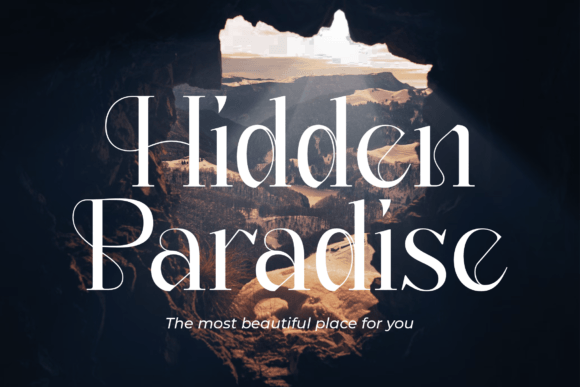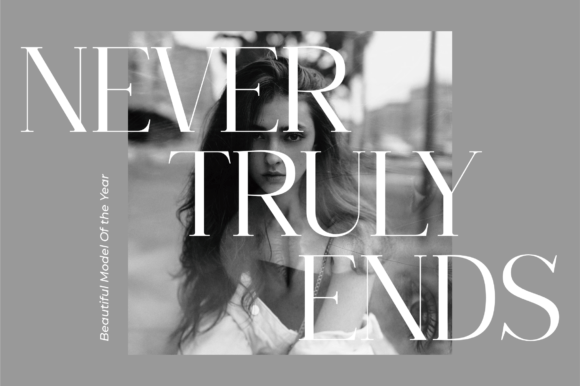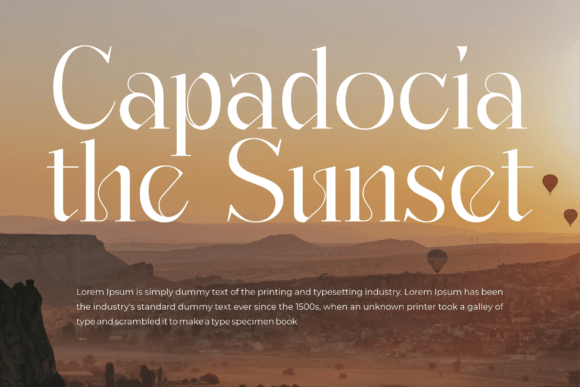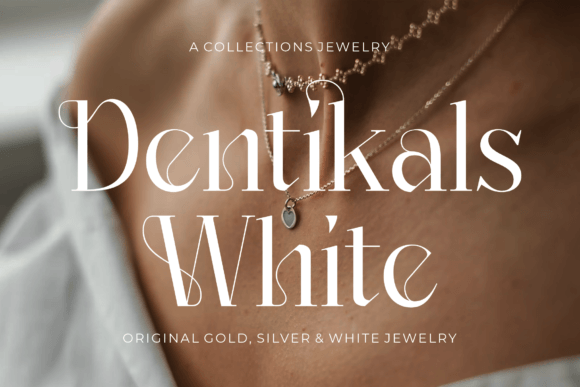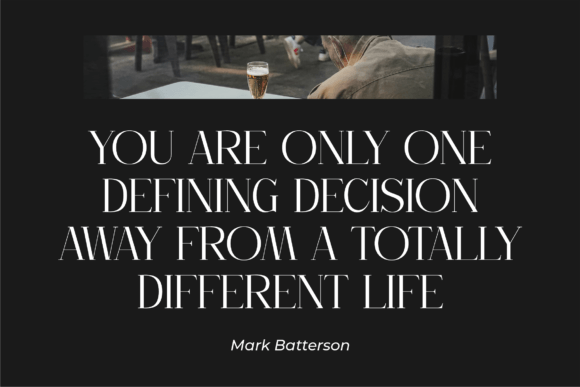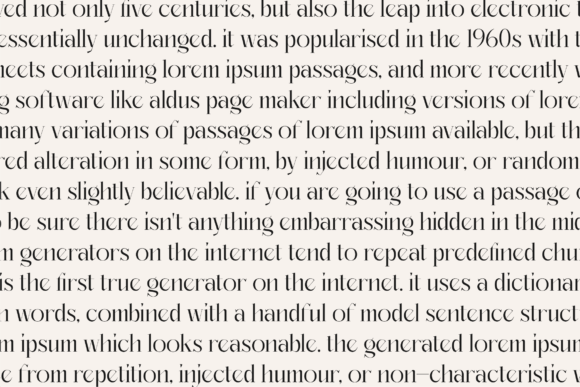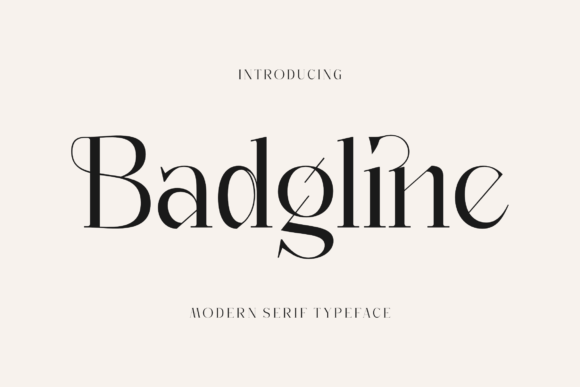
Introducing Badgline Font: The Epitome of Elegance and Luxury
In the realm of typography, a font can make or break the visual identity of a brand, product, or creative project. For those seeking a typeface that exudes elegance, sophistication, and a touch of classic charm, Badgline Font is an exceptional choice. This modern and classic serif typeface boasts a unique look that sets it apart from more traditional fonts, making it perfect for a wide range of applications, from luxurious logos and book or movie titles to fashion branding, magazines, and beyond.
The Essence of Badgline Font
Badgline Font is characterized by its distinctive serif features, which lend it an air of refinement and poise. Its design strikes a balance between modernity and classicism, making it versatile enough to be used in various contexts. Whether you’re aiming to create a vintage-inspired look or a sleek, contemporary feel, Badgline adapts seamlessly, ensuring your project stands out with elegance and sophistication.
Applications of Badgline Font
The versatility of Badgline Font makes it suitable for a multitude of creative projects. Here are some of the ideal applications for this exquisite typeface:
- Elegant Logos: For brands that wish to convey luxury, sophistication, and a high-end quality, Badgline Font is an excellent choice. Its unique serifs and classic undertones make it memorable and impactful.
- Book and Movie Titles: The font’s classic and modern blend makes it perfect for title designs that require a touch of elegance and drama. It will undoubtedly make your book or movie titles stand out.
- Fashion Branding: In the fashion world, where style and elegance are paramount, Badgline Font can help a brand establish a luxurious and refined image.
- Magazines and Editorial Content: For magazines, editorials, and any form of published content aiming for a sophisticated look, Badgline offers a typographic excellence that enhances readability and visual appeal.
- Clothes and Apparel: When it comes to branding for clothes and apparel, especially for high-end or luxury lines, Badgline Font can add a touch of class and distinction.
- Lettering and Quotes: For personal projects, gifts, or social media content, Badgline can be used to create beautiful lettering and stylized quotes that carry an elegant vibe.
Why Choose Badgline Font?
Choosing Badgline Font for your project comes with several advantages:
- Unique Aesthetic: Its distinctive look sets it apart from more common typefaces, ensuring your project has a unique visual identity.
- Versatility: Badgline’s adaptability makes it suitable for a wide range of applications, from digital media to print.
- Elegance and Sophistication: The font’s inherent qualities of elegance and sophistication make it ideal for projects that aim to convey a sense of luxury or high-end quality.
Tips for Using Badgline Font Effectively
To maximize the impact of Badgline Font in your projects, consider the following tips:
- Pairing: Experiment with pairing Badgline with sans-serif fonts for a contrasting and visually appealing effect, especially in editorial and digital content.
- Size and Weight: Play with different sizes and weights to create visual hierarchy and emphasize key messages or titles.
- Color: Choose colors that complement the elegance of Badgline. Neutral colors like black, white, and grays work well, but feel free to experiment with subtle color schemes that match your brand or project’s palette.
Badgline Font is a remarkable typeface that brings together the best of modern and classic serif designs. Its unique look, elegance, and versatility make it an excellent choice for designers and crafters looking to add a touch of luxury and sophistication to their projects. Whether you’re working on a logo, a fashion brand, a magazine, or any other creative endeavor, Badgline Font is sure to elevate your design to new heights of elegance and visual appeal.